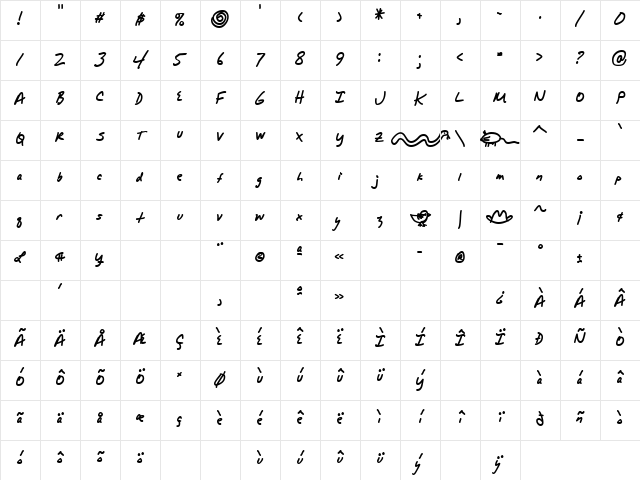
AlphaMack AOE Regular Free Font
AlphaMack AOE Regular
Design Context for AlphaMack AOE
AlphaMack AOE is a composed and adaptable typeface that performs quietly and consistently across a wide range of design contexts.